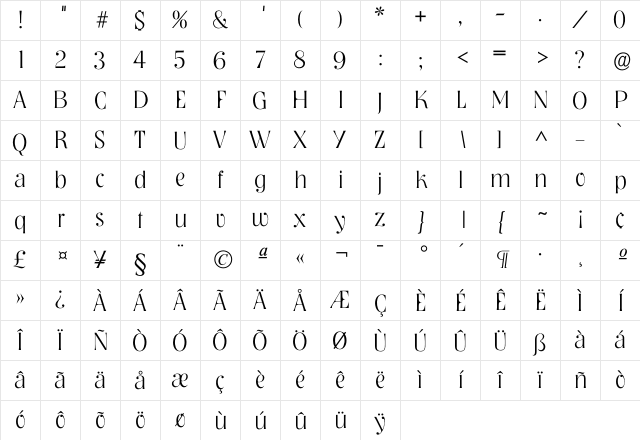
Nashvi Xlight Free Font
Nashvi Xlight
Style: Xlight
Nashvi Family
Nashvi Xlight
Design Context for Nashvi
Nashvi is a composed and adaptable typeface that performs quietly and consistently across a wide range of design contexts. Its slender proportions lend an understated elegance to any composition.